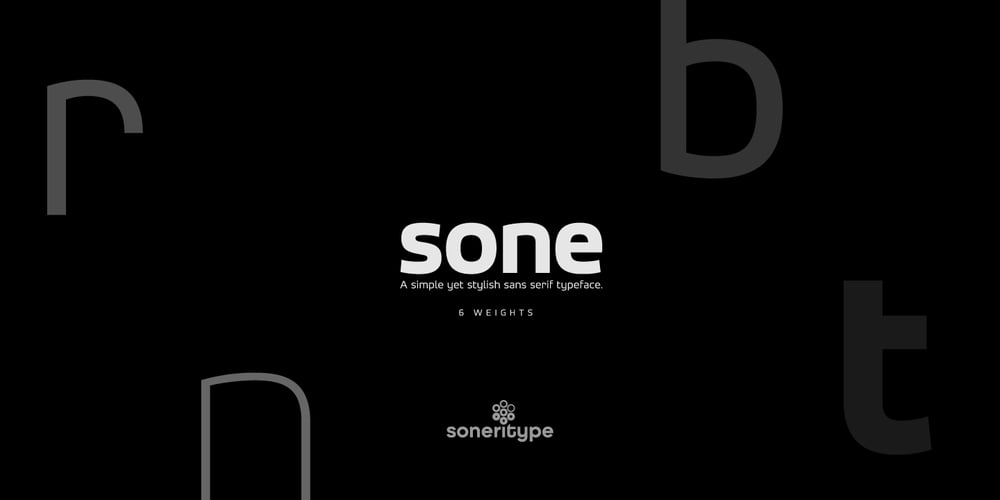
Sone Font Family was designed by Aakash Soneri and published by Soneri Type. Sone contains 6 styles and family package options. Sone is designed to be bold with stripped off nonessential details making it uncomplicated, simple in expression, yet appealing and easy to decipher, even from a distance.Serene and gentle in quality by low contrast, slow ductus and large x-height reducing the up down motion, plus enhance the legibility.It works beautifully in both, display and body copy.